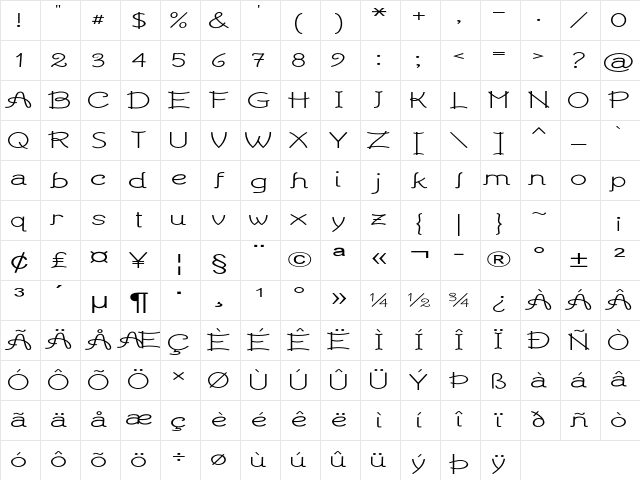
Scrapbook Curls Extra-expanded Regular Free Font
Scrapbook Curls Extra-expanded Regular
Style: Extra-expanded Regular
Design Context for Scrapbook Curls
Scrapbook Curls is a composed and adaptable typeface that performs quietly and consistently across a wide range of design contexts.
Pro Tip: Use Scrapbook Curls in both headline and body roles to test its range before committing to a single application.